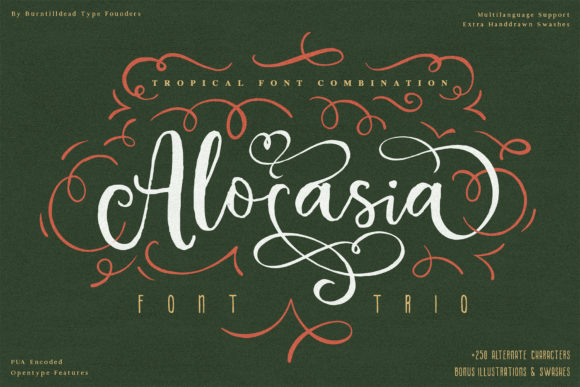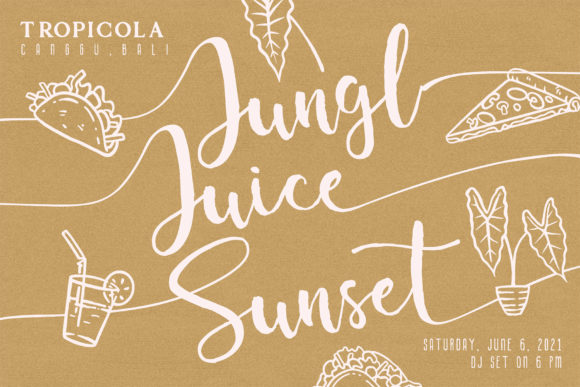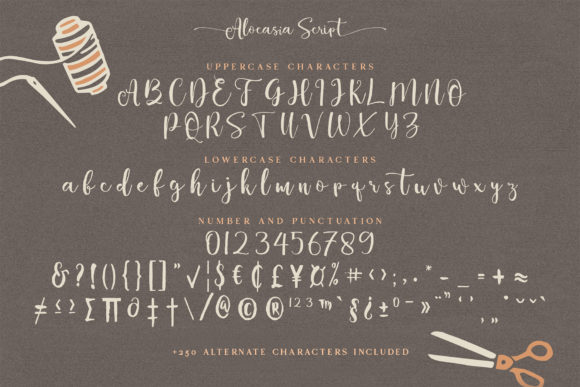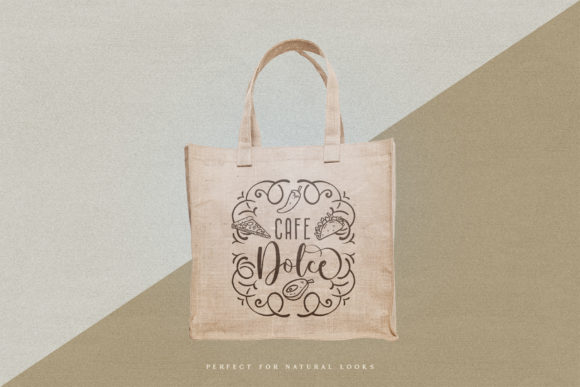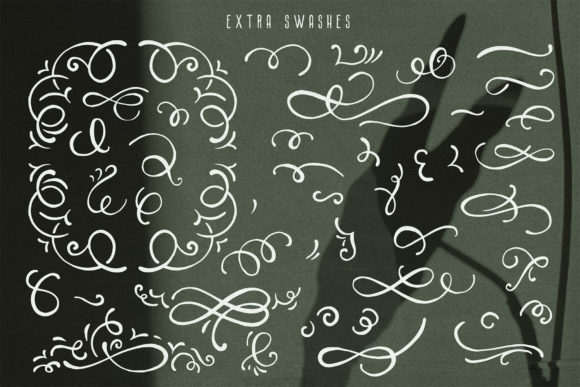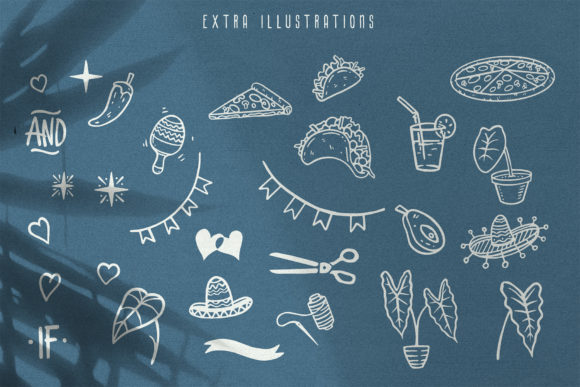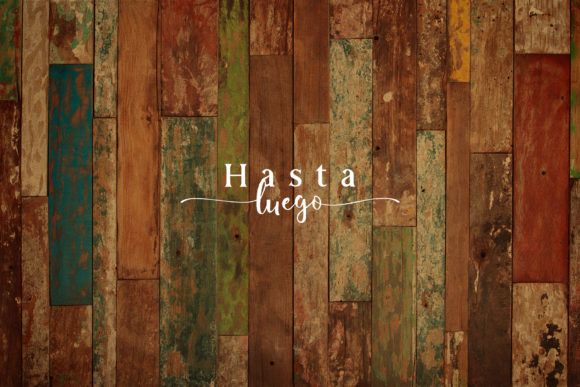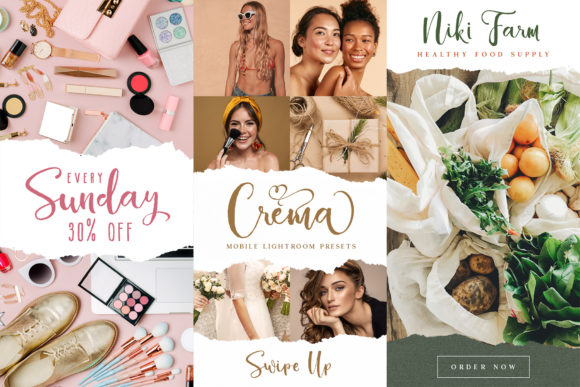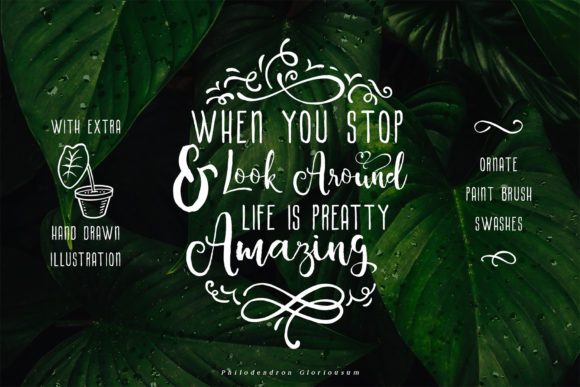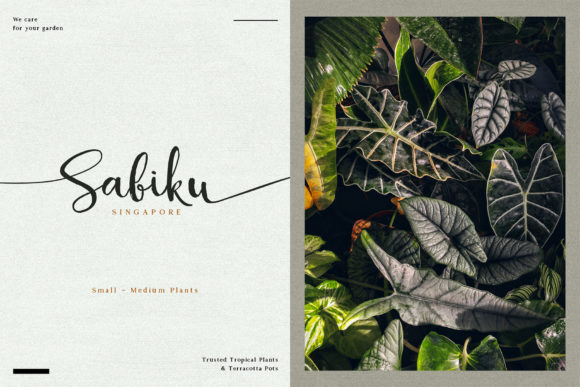
Alocasia Font
About Alocasia Font
Alocasia is a spectacular trio font (serif, sans and script). Incredibly versatile, this font fits a wide pool of designs, elevating them to the highest levels. This font is PUA encoded which means you can access all of the glyphs and swashes with ease! It features a varying baseline, smooth lines, gorgeous glyphs and stunning alternates. Add Alocasia to your favorite creative ideas and notice how it makes them come alive!